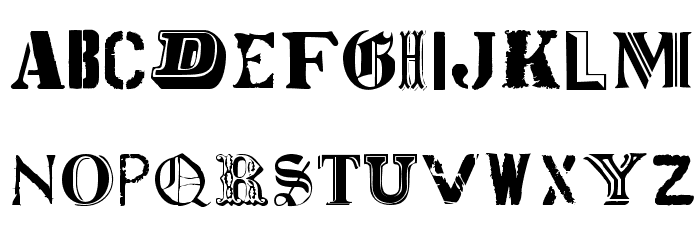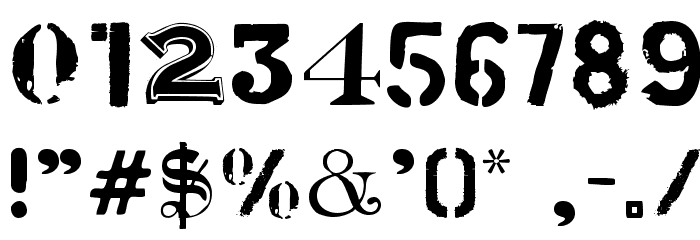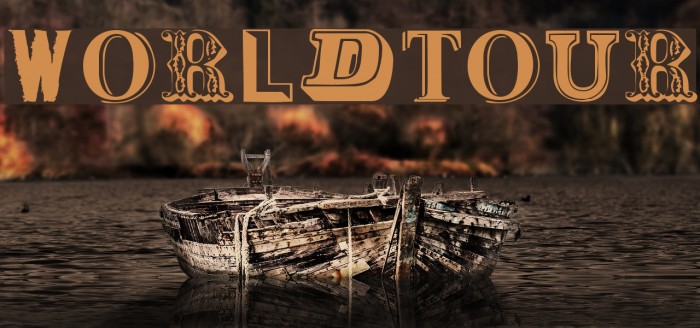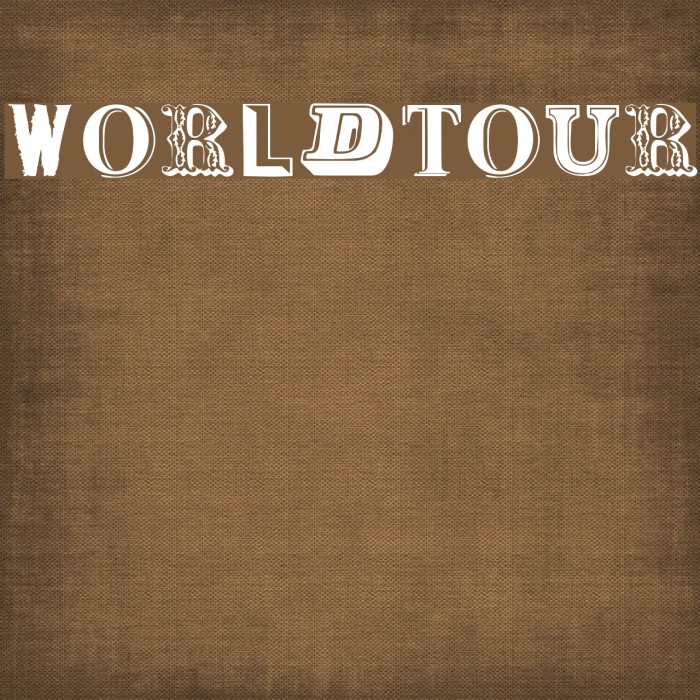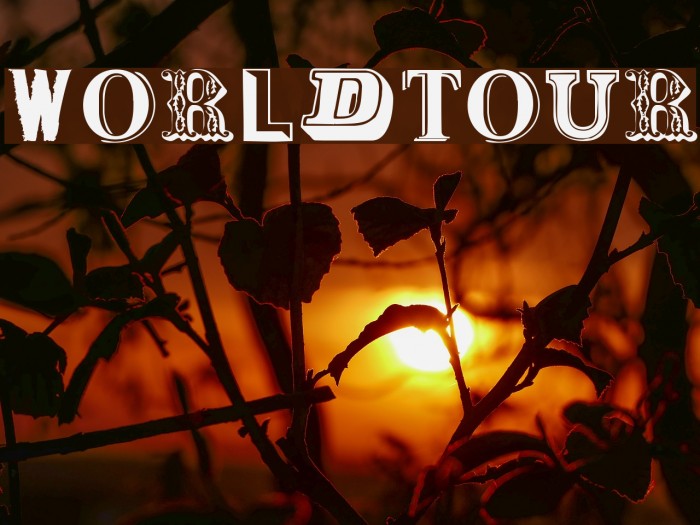
WorldTour Font
This font features a bold and eclectic design, combining elements of vintage and modern styles. Each character is uniquely styled, with some letters incorporating distressed textures and others featuring bold, solid fills. The font presents a mix of serif and sans-serif characteristics, with some letters displaying decorative elements such as stripes or shadows. The numbers and special characters follow the same eclectic theme, making the font suitable for eye-catching designs. Its distinct and varied appearance makes it ideal for creative and artistic projects.
A bold, eclectic font with vintage and modern elements, featuring unique and decorative characters.
- Proposed Projects: Ideal for posters, album covers, branding, and any project requiring a bold, artistic touch.
- Overall Style: Vintage, Modern, Decorative